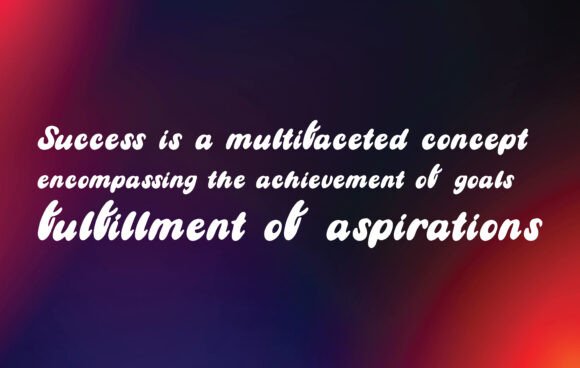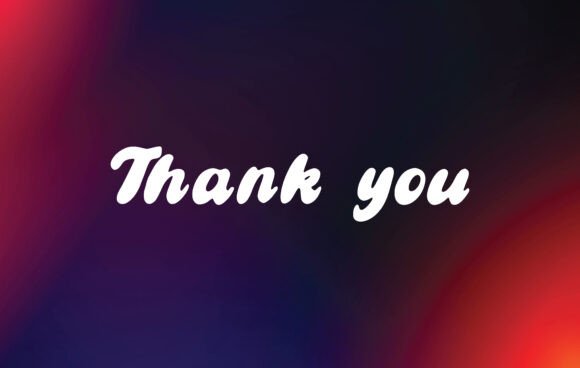
Introduction to Mongoose Font
Have you ever stared at a blank page, waiting for that spark of creativity to strike? For designers, those moments can be both exhilarating and intimidating. But what if you had the perfect tool to bring your ideas to life? Enter the Mongoose Font, a stunning handwritten font that’s about to revolutionize your creative projects.
With its beautiful, flowing script, the Mongoose Font is the ultimate design resource for anyone looking to add a touch of elegance to their work. Whether you’re creating eye-catching logos, branding, or quotes, this high-quality font is sure to take your designs to the next level. And the best part? You can download it for free, making it an accessible resource for designers of all levels.
But what makes the Mongoose Font truly valuable is its versatility. With a transparent background, you can easily layer it over other design elements, creating a seamless and professional look. Whether you’re working on a personal project or a client brief, this font is sure to impress.
Key Features of Mongoose Font
- High-quality, professional font designed for creative projects and presentations, ideal for designers, artists, and writers.
- Comes with a transparent background, allowing for seamless integration with any design resource, including backgrounds and images.
- Designed with a modern and sleek aesthetic, the Mongoose Font is perfect for use in logos, branding, and marketing materials.
- Features a high-resolution design (up to 300 DPI) for crisp and clear readability, making it ideal for print and digital applications.
- Supports a wide range of languages, including Latin, Cyrillic, and Greek alphabets, making it a versatile design resource for international projects.
- Includes a comprehensive character set, including punctuation, numbers, and symbols, ensuring that you have everything you need to complete your creative project.
Honest Review: Mongoose Font
I recently stumbled upon the Mongoose Font, a high-quality design resource that caught my attention. With a transparent background and sleek, modern aesthetic, I was excited to see how it would perform in my creative project.
What works well: ✨ The Mongoose Font is incredibly versatile, offering a range of weights and styles to suit various design needs. Its clean and minimalist design makes it perfect for logos, headings, and body text. I also appreciated the fact that it’s available for free download, making it a valuable asset for designers on a budget.
Here are some of the key features that I liked:
- High-quality design with a modern aesthetic
- Range of weights and styles to suit various design needs
However, I did encounter a few limitations: ⚠️ The font may not be suitable for very small text sizes, as it can become difficult to read. Additionally, some users may find the minimalist design too simple for their taste.
Overall, I’m impressed with the Mongoose Font and would highly recommend it for designers working on creative projects. Its high-quality design and versatility make it a valuable addition to any design resource library.
Mongoose Font
The Mongoose Font is a versatile and high-quality design resource that can be used in various creative projects. It is available for free download, making it an ideal choice for designers and artists looking for a reliable font.
Tips for Getting the Most Out of Mongoose Font
To get the most out of Mongoose Font, use it in combination with other design elements to create visually appealing and engaging designs. Experiment with different font sizes, colors, and styles to achieve the desired look.
The Mongoose Font is ideal for use in various creative projects, including: